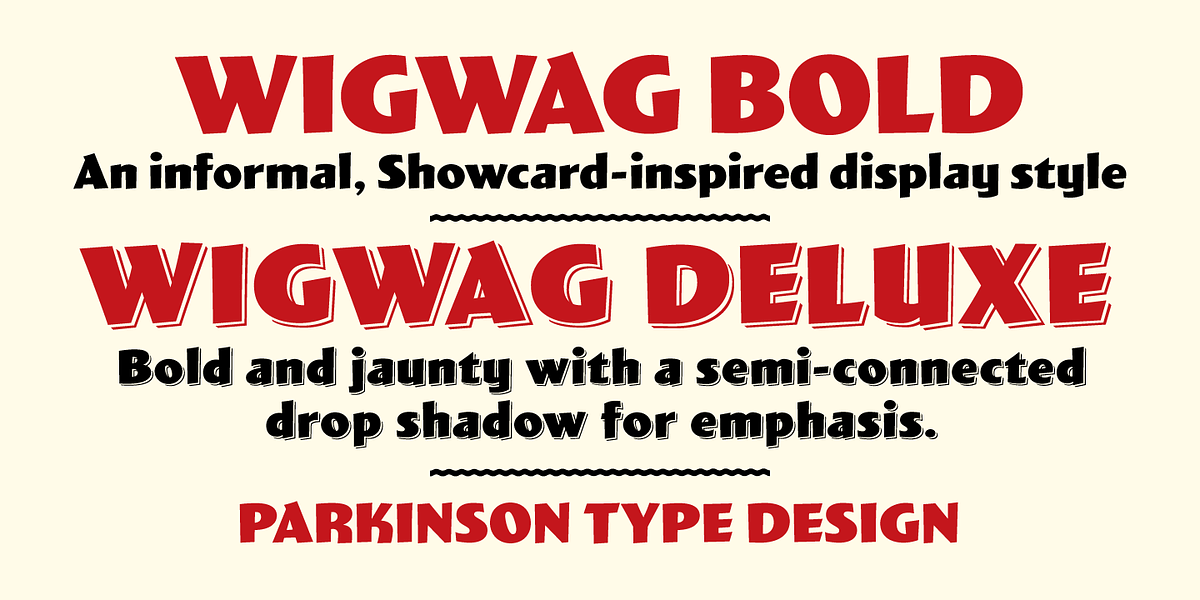
Wigwag
WigWag is a bold, informal sans-serif typeface inspired by mid-20th century showcard lettering. Its design draws inspiration from the work of prominent Speedball lettering artists Ross George, Cecil Wade, and Samuel Welo. Originally designed around 2001 by Jim Parkinson, it has recently been refreshed and re-released.